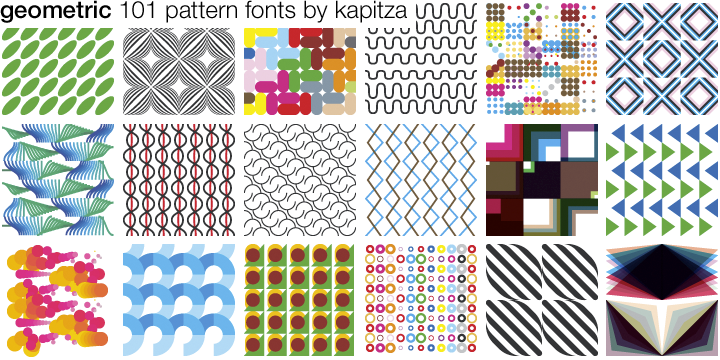
Geometric pattern fonts can be installed on your computer just like any other font. But instead of letters they contain a graphic shape on each key.
The power of pattern fonts lies in the way they allow you to create patterns in any software application (from word processing to graphics); and standard font features like size, leading and letter spacing make tweaking and tuning pattern designs limitless and easy.
The extensive Geometric font collection provides a fantastic resource for designers who want to use patterns in their work.